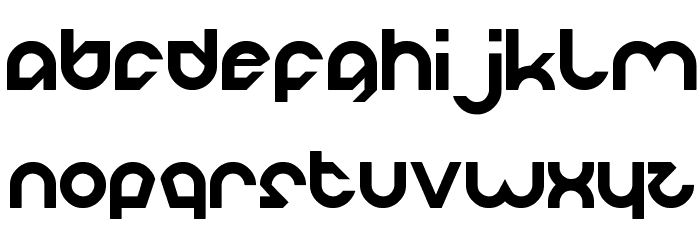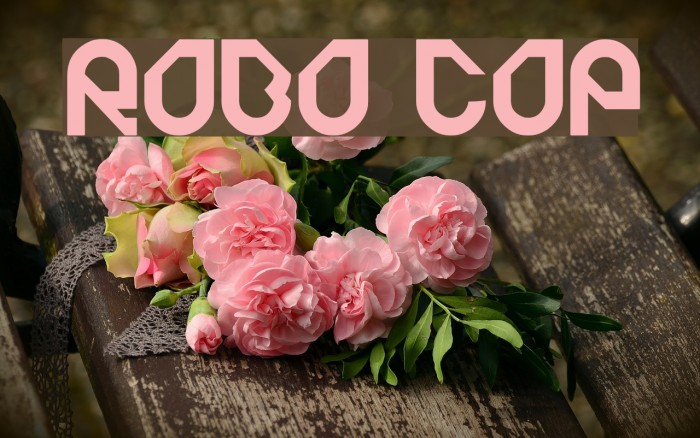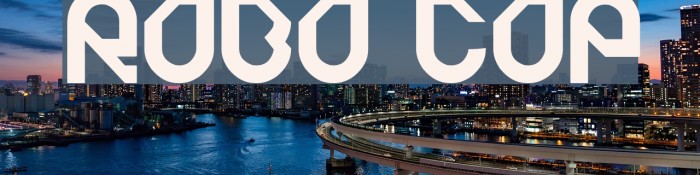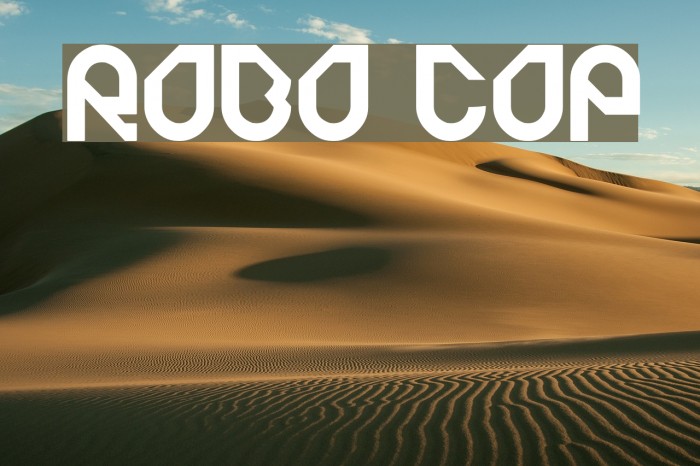
ROBO COP Font
This font features a bold, futuristic design with geometric shapes and sharp angles. The characters are constructed with a combination of straight lines and curves, giving it a robotic and mechanical appearance. The uppercase letters are particularly striking, with unique cuts and edges that create a sense of movement and energy. The lowercase letters maintain the same geometric style, ensuring consistency across the font. The numbers and special characters are designed to match the overall aesthetic, making it suitable for a variety of digital and print applications.
A bold, futuristic font with geometric shapes and sharp angles.
- Proposed Projects: Ideal for sci-fi themed projects, technology branding, video game titles, and futuristic posters.
- Overall Style: Futuristic